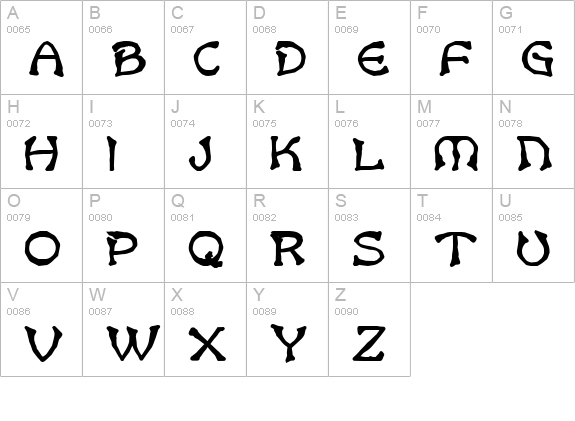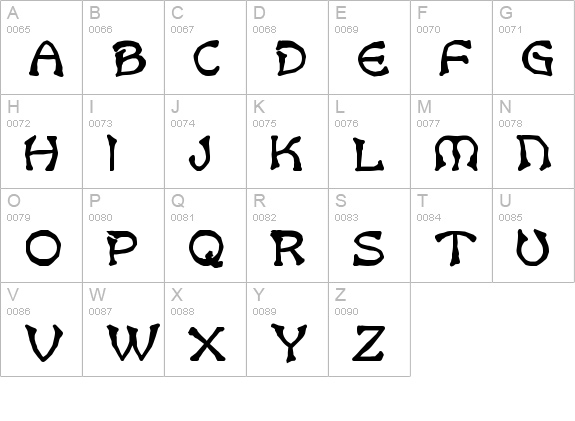
Bart Heavy Bold Font Details
Bart Heavy Bold is a heavy, high-impact variant in the Bart typeface family \xE2\x80\x94 well suited to high-impact headlines, posters, and display advertising.
Introducing Bart Heavy Bold font, a versatile and impactful typeface that commands attention with its bold and sturdy presence. The Bart Heavy Bold font exudes confidence and strength, making it an ideal choice for headlines, titles, and branding projects that require a bold statement. Its sleek and modern design ensures readability and visual impact across various applications. And the best part? Bart Heavy Bold font is available for free download at FontsMarket.com, making it easily accessible to designers, creatives, and enthusiasts looking to add a touch of boldness to their projects. Don't miss out on this opportunity to elevate your designs with the striking Bart Heavy Bold font - download it today and let your creativity shine!